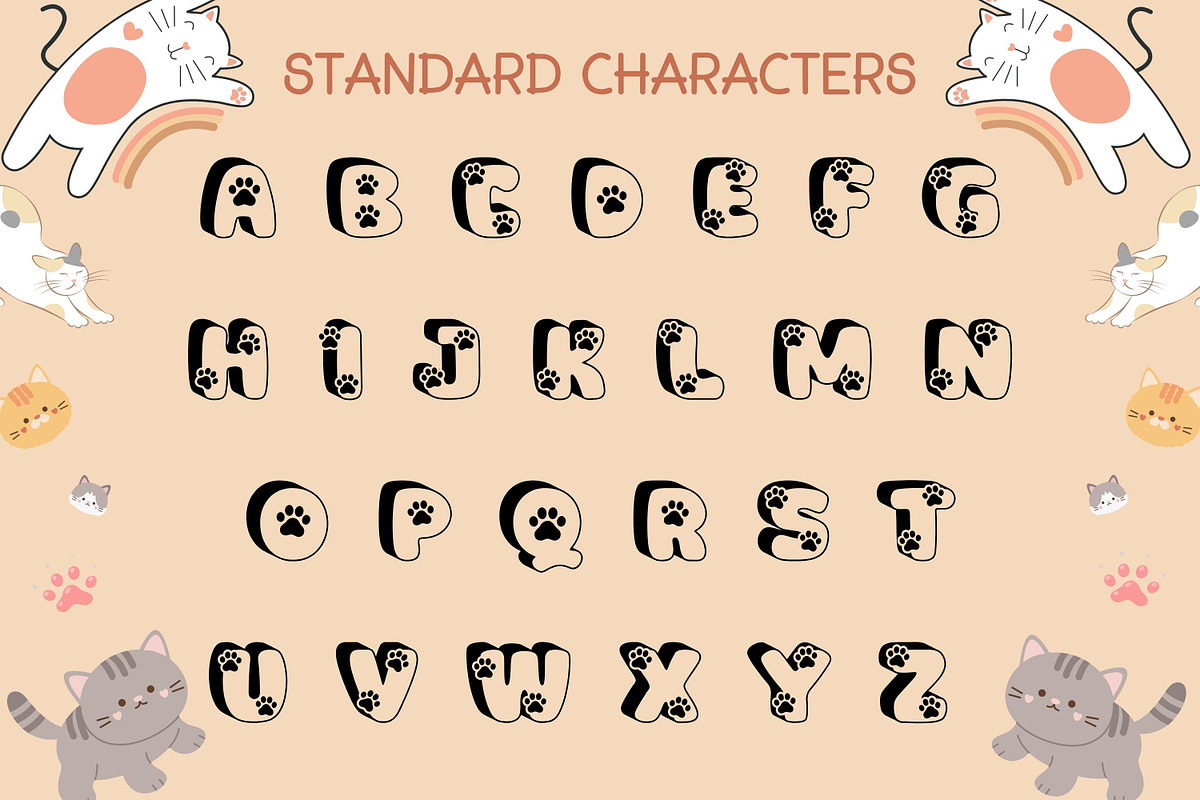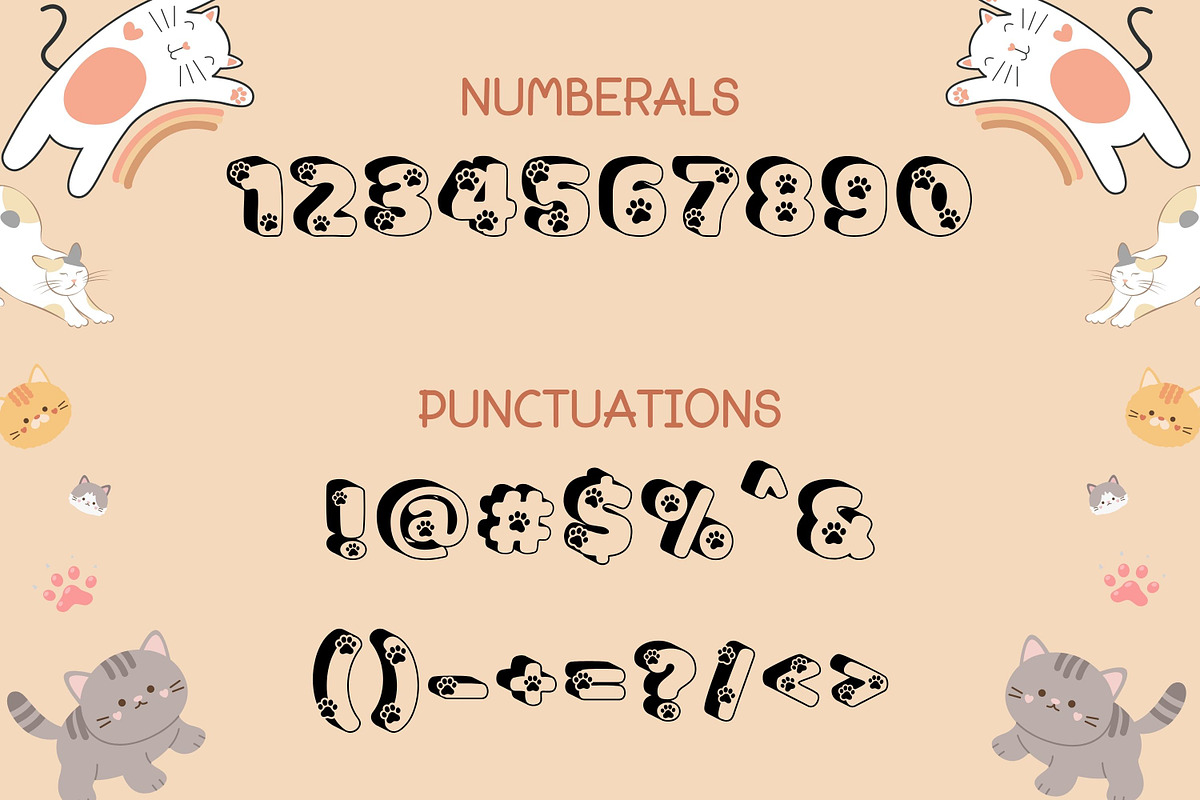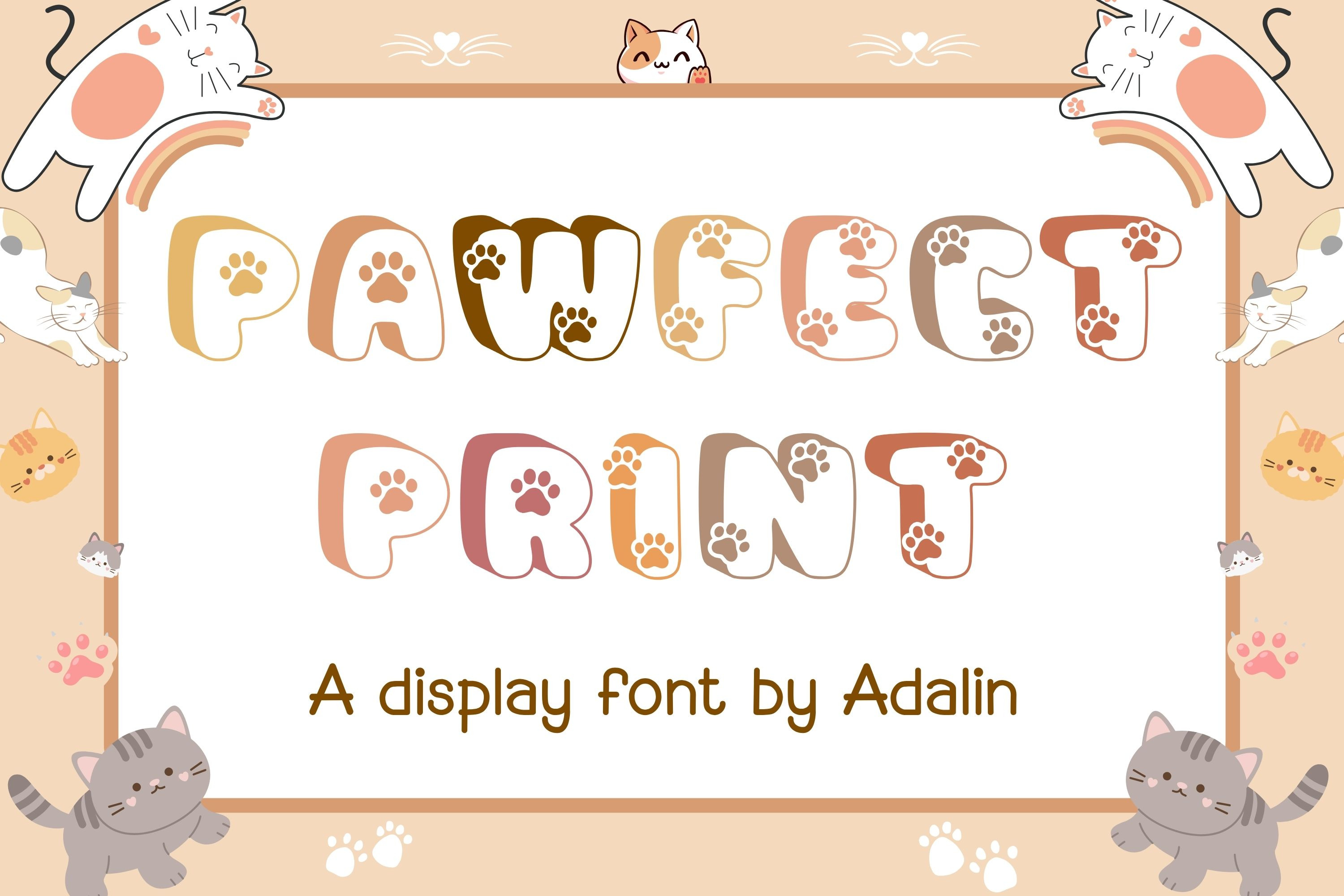
Pawfect Print - Display Font
Pawfect Print is an adorable display font inspired by playful cats and cute little paw prints. Each character features charming paw details that add a fun and cozy touch to your designs. With its rounded, chunky letterforms and lovable style, this font is perfect for pet-themed projects, children's crafts, stickers, greeting cards, nursery decor, t-shirts, sublimation, and social media graphics.
Whether you're creating for cat lovers, pet businesses, or fun DIY projects, Pawfect Print brings warmth, personality, and irresistible cuteness to every design.